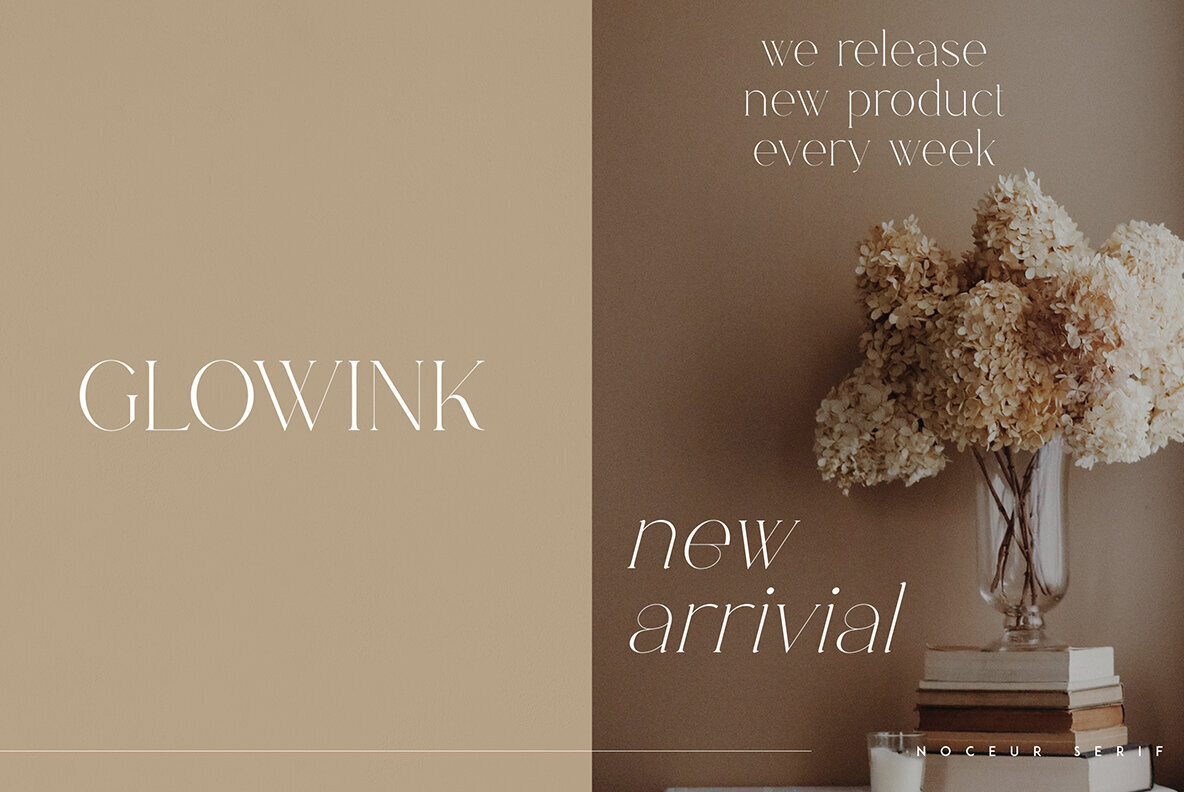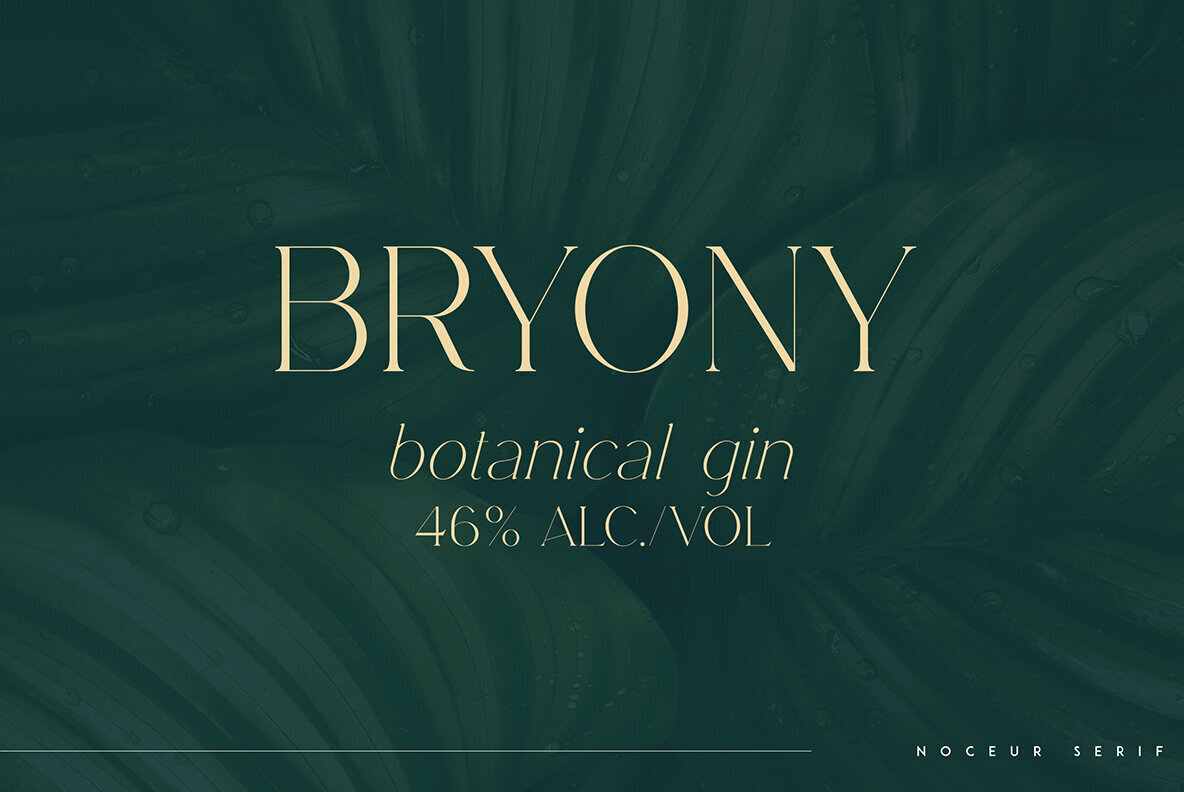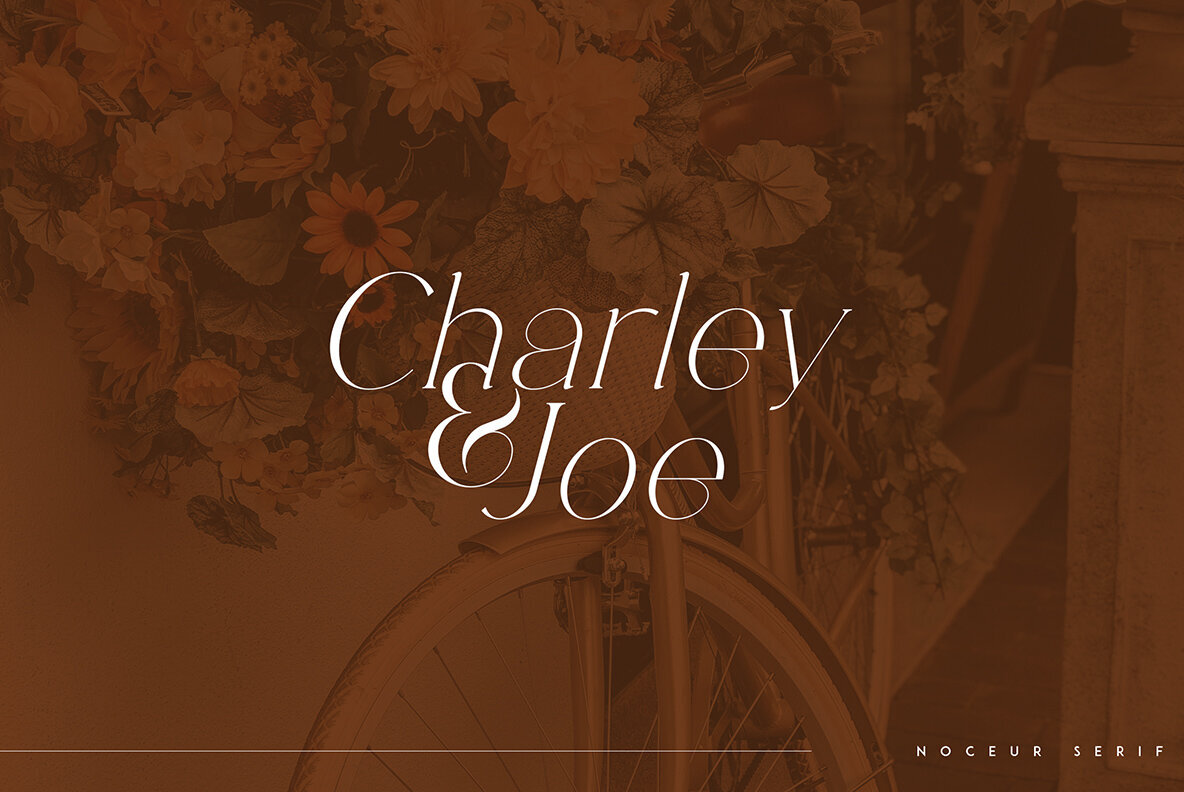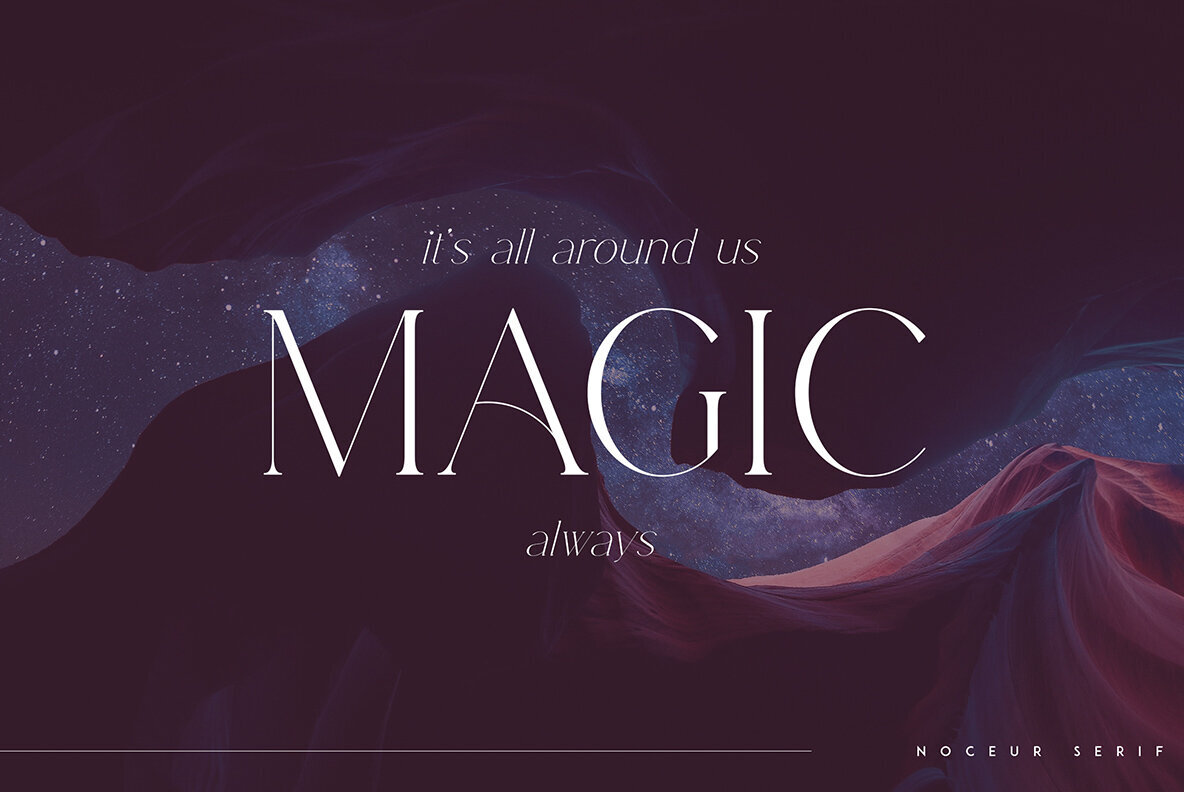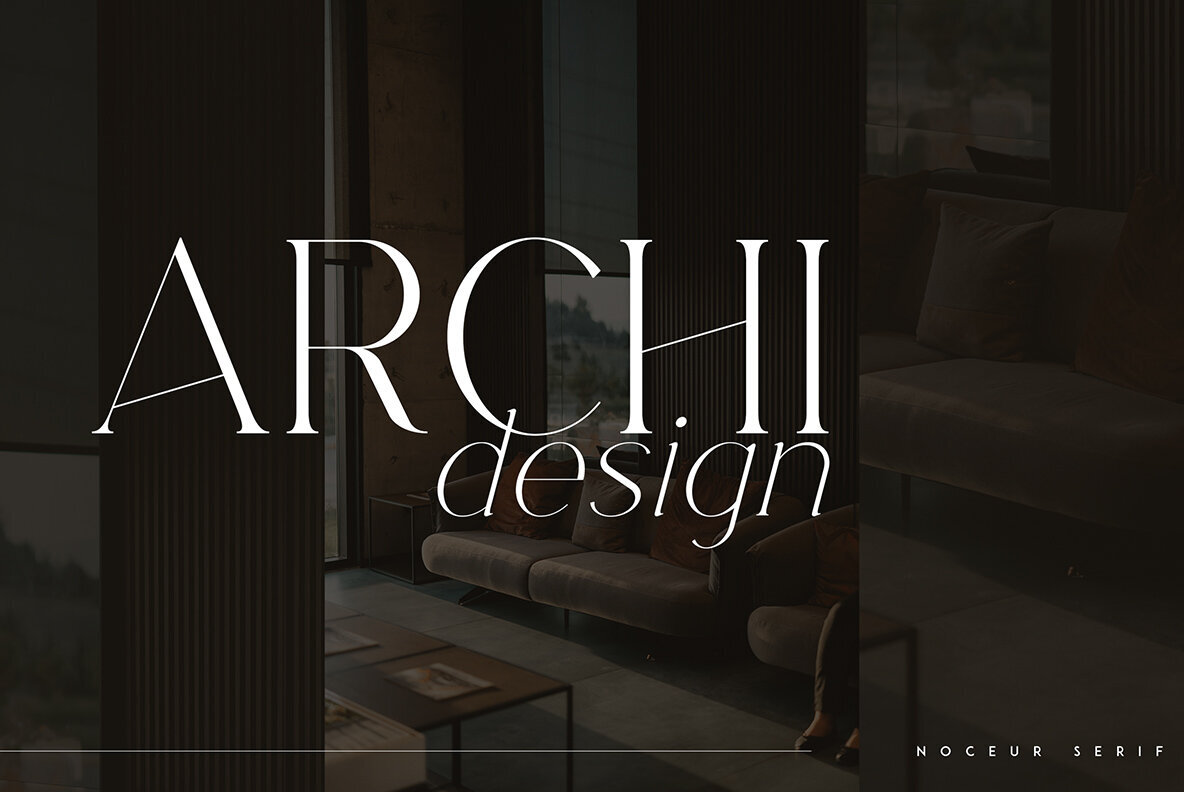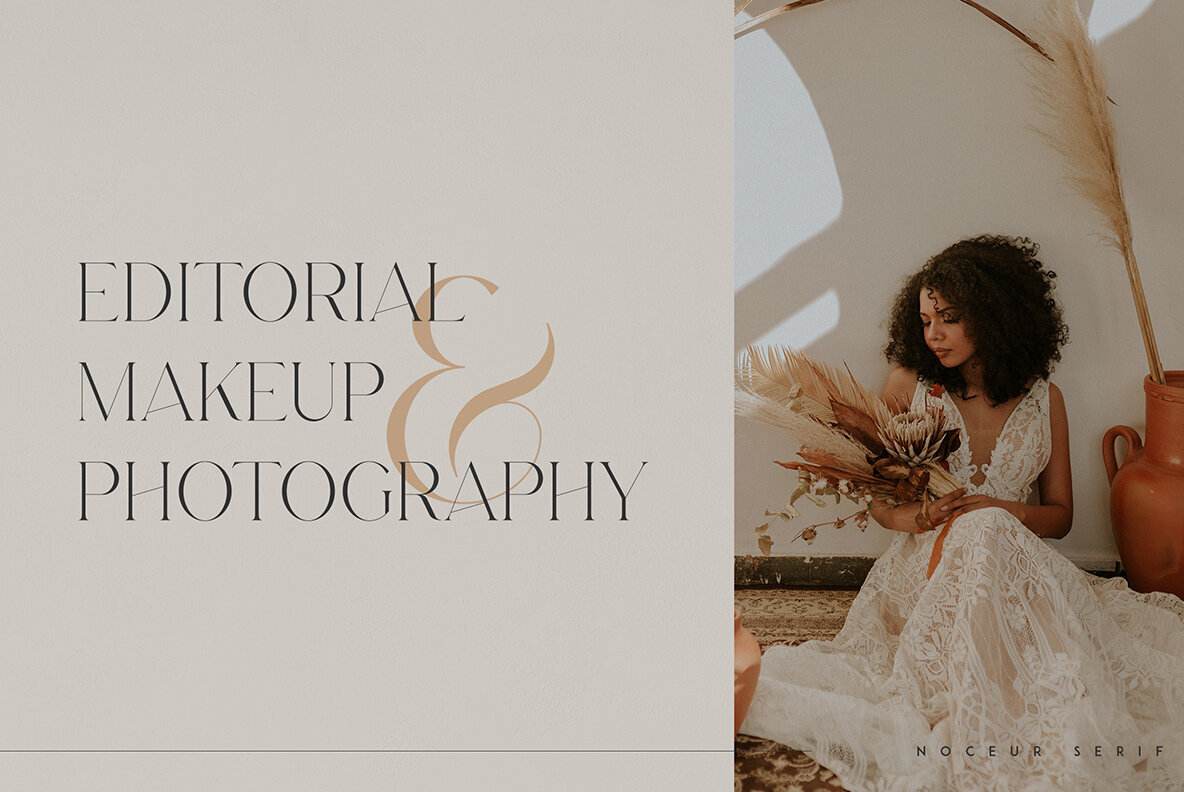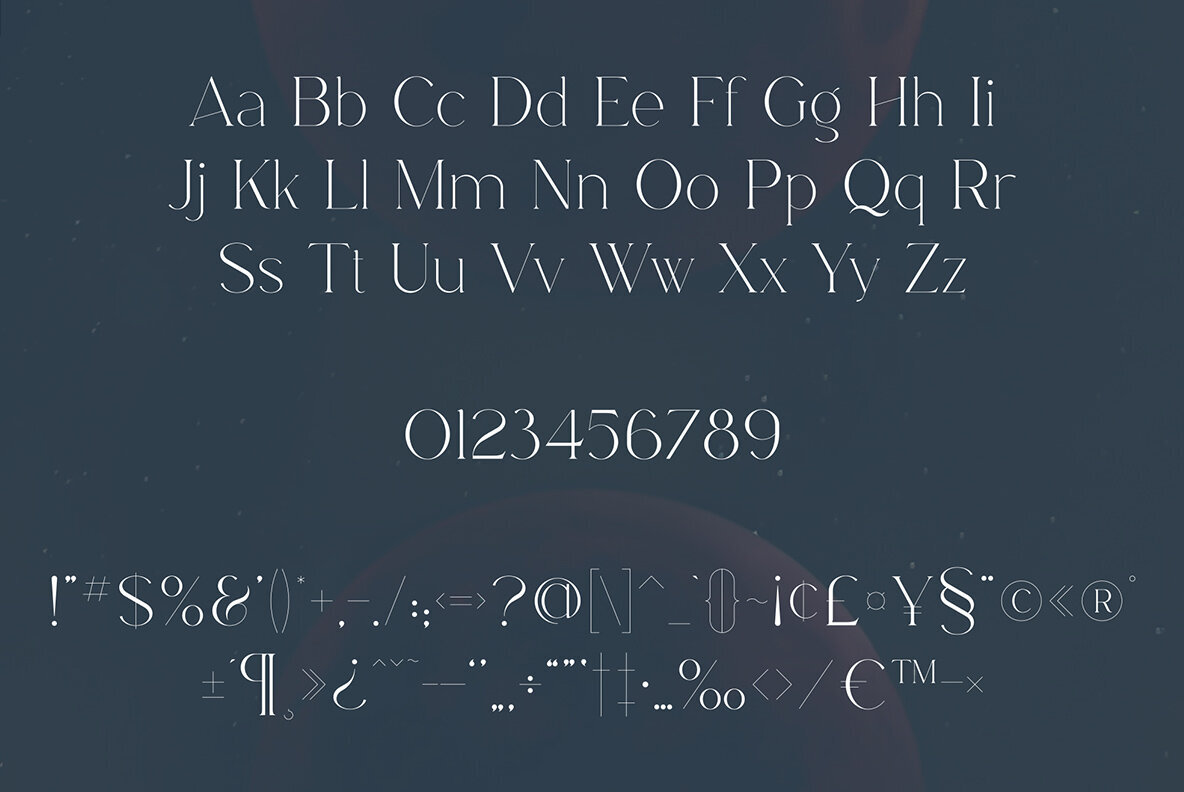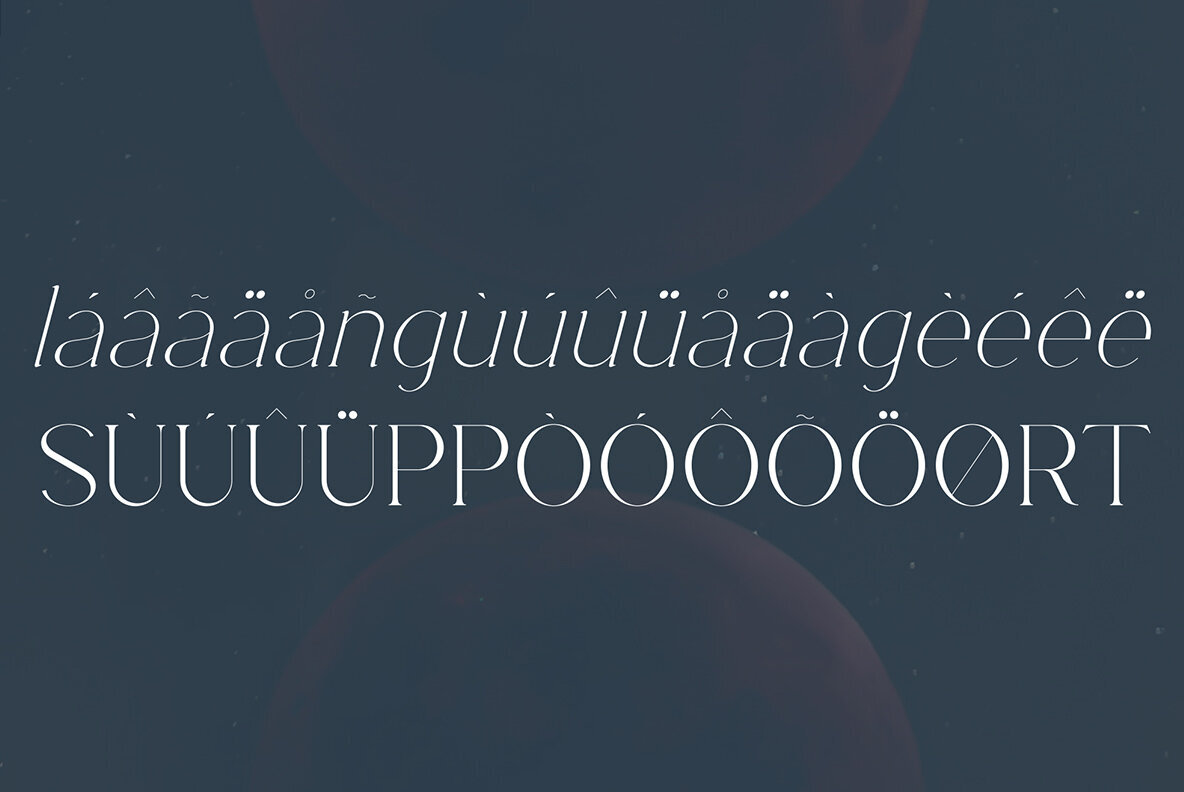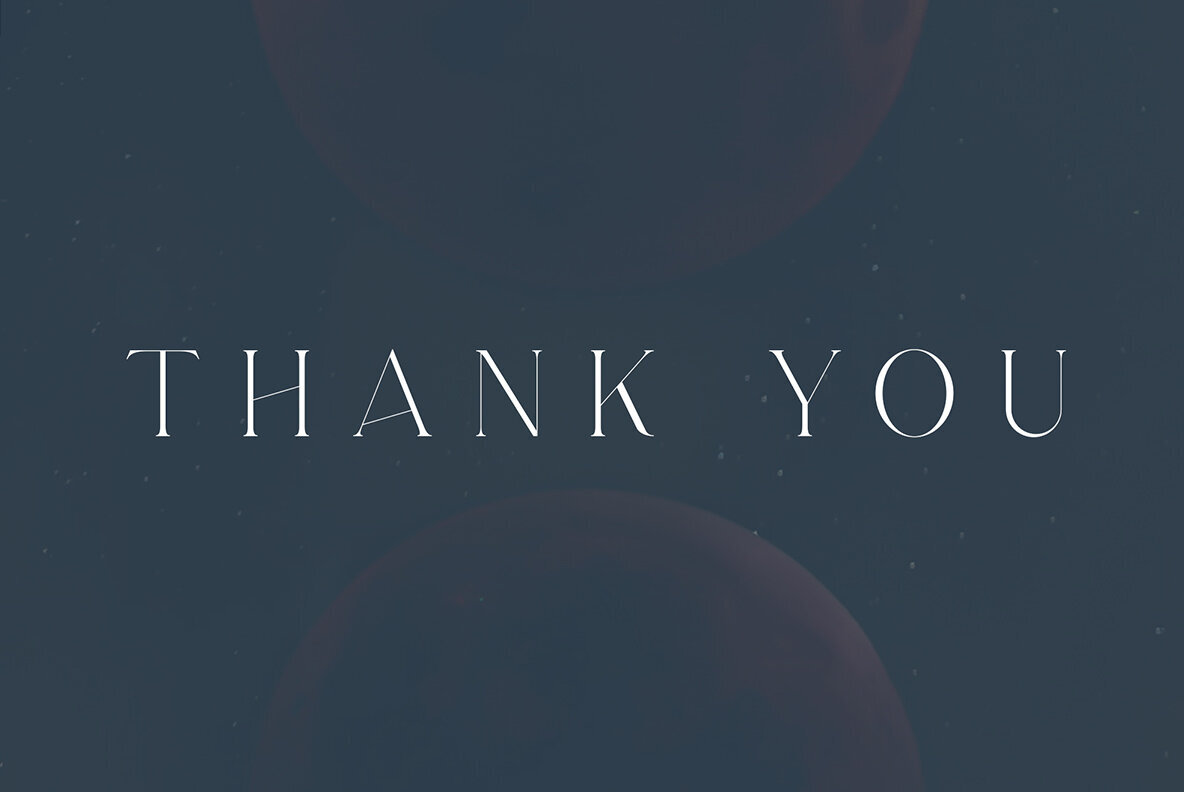
Noceur Font
Noceur Regular
Noceur Italic
Noceur is an exquisite serif typeface, embodying luxury and delicacy while offering comprehensive multilingual support. Whether in large headings or subtle captions, it effortlessly complements any scale, seamlessly adapting to varied design contexts. From branding projects to homeware designs, product packaging, or magazine headers, Noceur provides a touch of elegance. It's equally effective as a stylish overlay for background images, adding sophistication without overpowering the design.Noceur: Luxurious Serif Font for Versatile Design